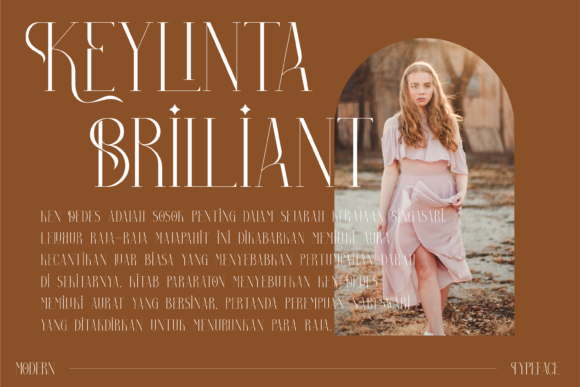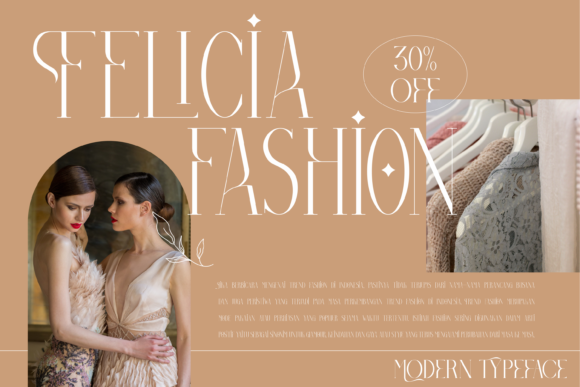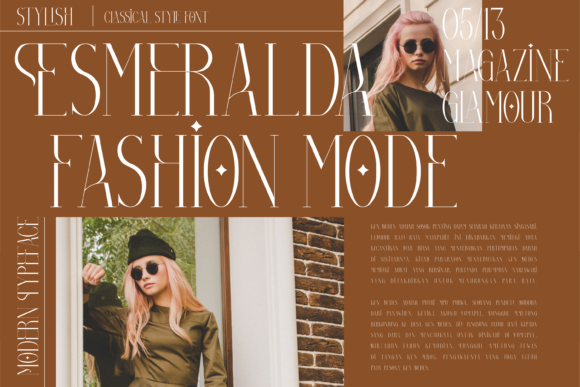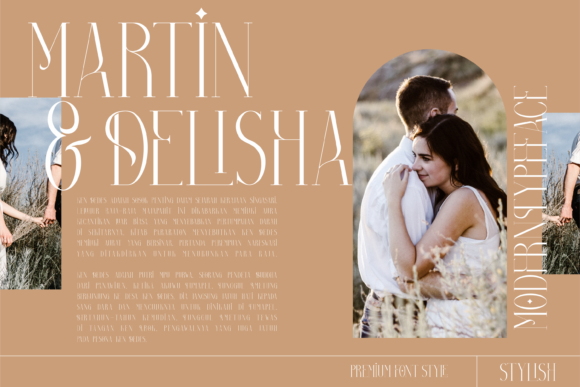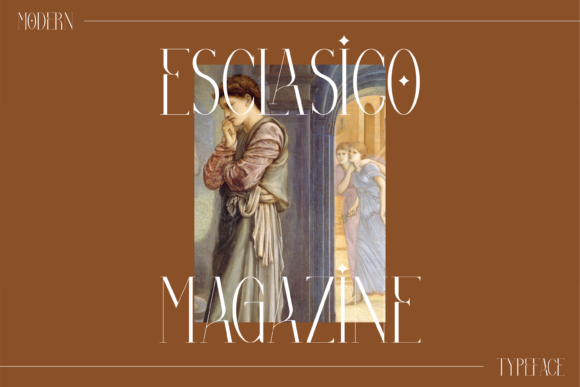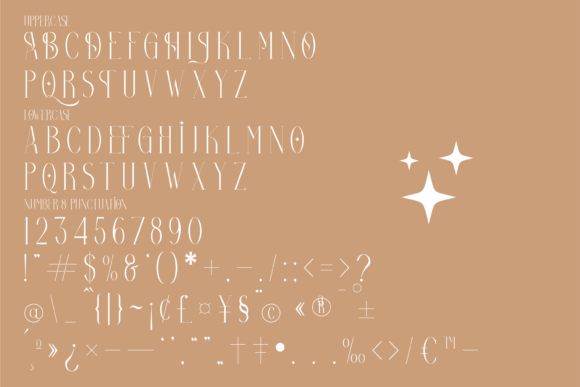
Introducing Bolinger Font: Elevate Your Designs with Sophistication and Elegance
In the world of typography, a font can make or break a design. For designers and crafters seeking to add a touch of sophistication and chic to their work, Bolinger Font is an exceptional choice. This stunning serif font boasts unique characters that are sure to make your words stand out from the background. In this article, we’ll dive into the features and benefits of Bolinger Font, and explore how it can elevate your designs to new heights.
A Font that Exudes Sophistication and Chic
Bolinger Font is a masterclass in typographic design. Its serif lines and curves exude a sense of elegance and refinement, making it perfect for projects that require a touch of luxury. Whether you’re working on a branding campaign, a packaging design, or a digital project, Bolinger Font is sure to impress. Its unique characters add a touch of personality to your text, setting it apart from more traditional fonts.
PUA Encoding for Easy Access to Glyphs and Swashes
One of the standout features of Bolinger Font is its PUA (Private Use Area) encoding. This means that you can access all of the font’s glyphs and swashes with ease, giving you unparalleled creative control over your text. With PUA encoding, you can effortlessly insert special characters, ligatures, and swashes into your text, making it easy to add a touch of elegance and sophistication to your designs.
Bolinger Font is a versatile font that is perfect for a wide range of design applications. Whether you’re a professional designer or a crafter looking to add a touch of personality to your projects, this font is an excellent choice. Its sophisticated and chic design makes it ideal for:
- Branding and logo design
- Packaging design
- Digital marketing materials
- Stationery and business cards
Why Choose Bolinger Font?
With so many fonts available, why choose Bolinger Font? Here are just a few reasons why this font stands out from the crowd:
- Unique characters: Bolinger Font boasts unique characters that add a touch of personality to your text.
- PUA encoding: Easily access all of the font’s glyphs and swashes with PUA encoding.
- Sophisticated and chic design: Elevate your designs with a font that exudes elegance and refinement.
- Versatile: Perfect for a wide range of design applications, from branding to crafting.
Tips for Using Bolinger Font
To get the most out of Bolinger Font, here are a few tips to keep in mind:
- Use it sparingly: Bolinger Font is a statement font, so use it sparingly to add emphasis to your text.
- Experiment with glyphs and swashes: Take advantage of PUA encoding to add special characters and ligatures to your text.
- Pair it with other fonts: Bolinger Font pairs well with sans-serif fonts, so try pairing it with a clean and modern font for a striking contrast.
Bolinger Font is a sophisticated and chic serif font that is sure to elevate your designs to new heights. With its unique characters, PUA encoding, and versatile design, it’s perfect for designers and crafters looking to add a touch of elegance and refinement to their work. Whether you’re working on a branding campaign or a crafting project, Bolinger Font is an excellent choice. So why wait? Download Bolinger Font today and start creating stunning designs that stand out from the background!